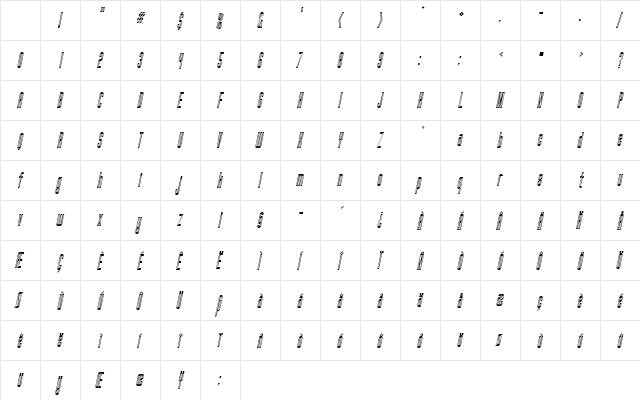
Complete FanatiqueInline Oblique glyph index. Displaying only characters natively supported by FanatiqueInline Oblique font.
FanatiqueInline is built around its visual character rather than neutral utility - its distinctive forms are designed to make an impression at display sizes. The slanted form adds forward momentum and visual energy.
Font Pairing: Pair with a clean neutral sans-serif for body copy to let FanatiqueInline's character lead without overwhelming the composition.
Pro Tip: Use FanatiqueInline exclusively at display sizes - it was designed to be seen, not read at length. Let a neutral companion handle body copy.